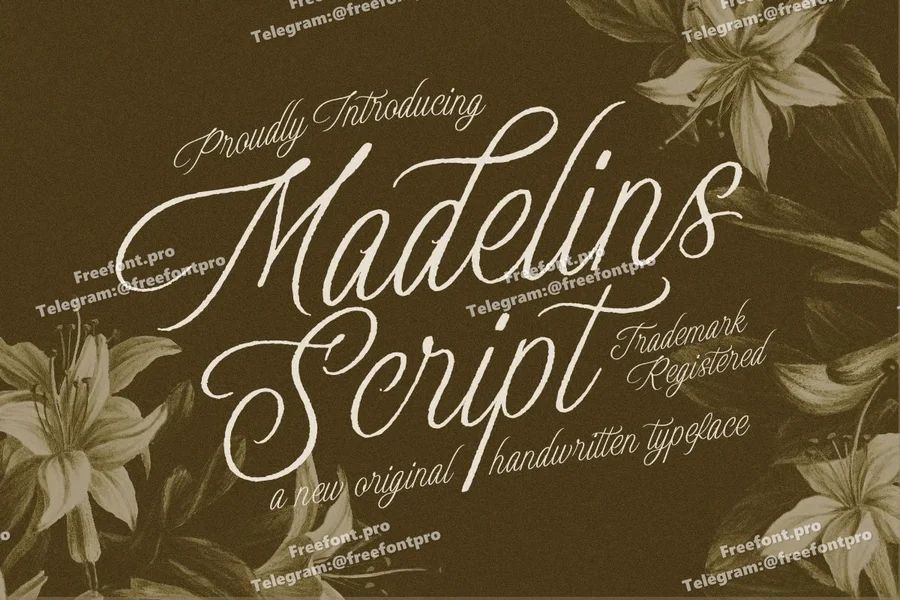
Madelins
Madelins Script is an elegant and refined handwritten script font with a natural flow and vintage charm. Its calligraphic strokes and graceful curves make it perfect for creating romantic, or artistic design projects.